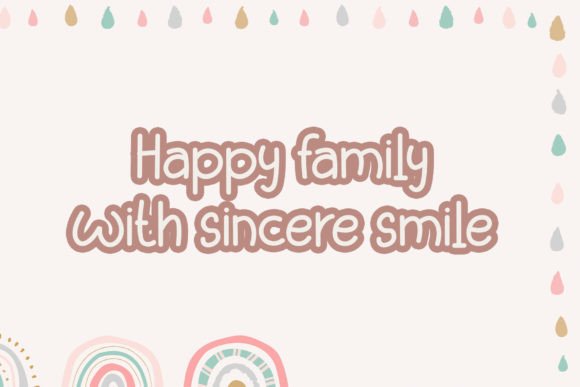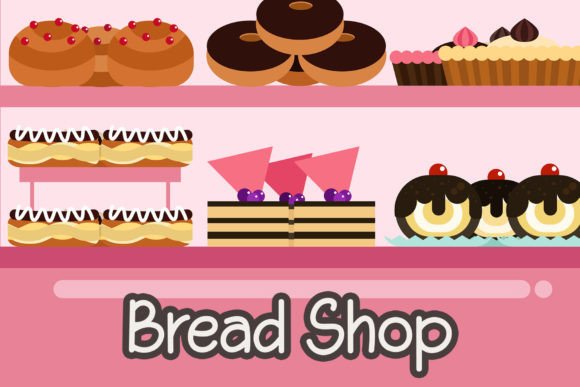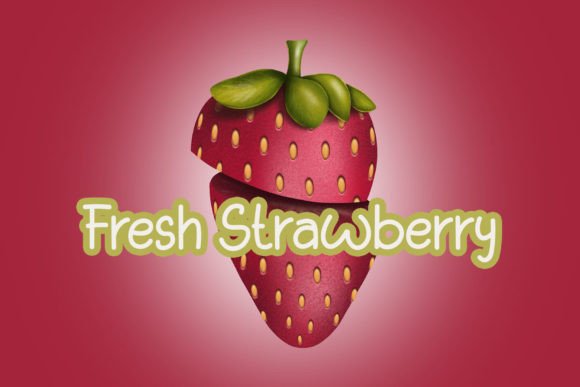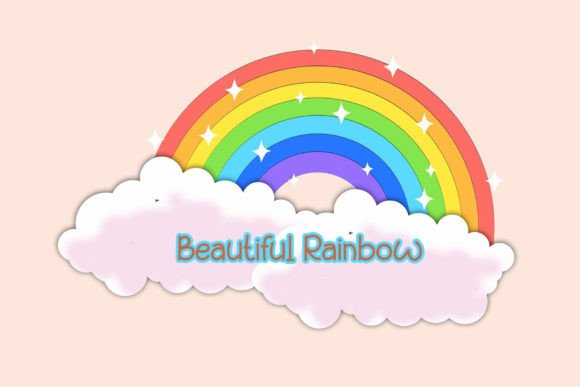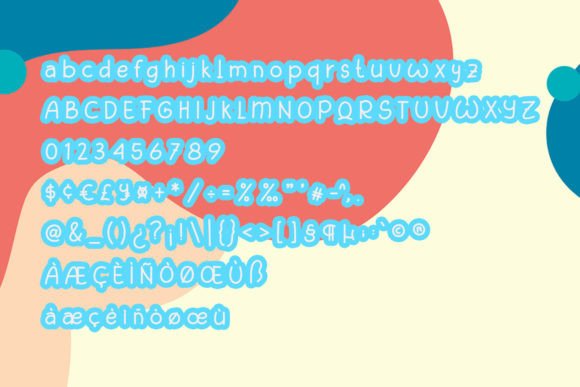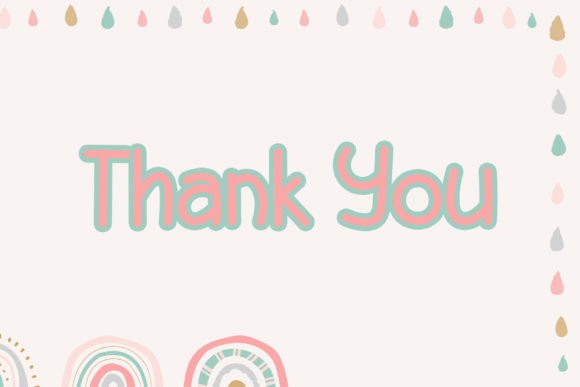
The Birth of a New Design Classic
Have you ever found yourself lost in a sea of digital design tools, searching for that perfect font to give your project an extra touch of magic? It’s a feeling we’ve all experienced at some point, but what if we told you that your search is over? Introducing Baby Happy Font, a delicate handwritten font that’s been carefully crafted to bring a touch of whimsy and personality to your designs.
Baby Happy Font is more than just a pretty face – it’s a versatile tool that can be used to write letters, invitations, food product labels, titles, and so much more. Its unique, handwritten style makes it a standout in the world of design, and its ease of use makes it accessible to designers of all levels. Whether you’re a seasoned pro or just starting out, Baby Happy Font is a valuable addition to any design toolkit.
Baby Happy Font Key Features
- Unique Characteristics: Baby Happy Font features a playful, hand-drawn design with rounded edges and soft lines, perfect for creating a whimsical and child-friendly atmosphere.
Baby Happy Font Review
I recently had the chance to work with the Baby Happy Font, and I must say it’s a unique and playful addition to any design project. ✨ One of the things that stands out about this font is its high level of customization, allowing designers to easily adjust the weight, width, and even the curves of the letters. This level of control makes it perfect for creating custom branding and promotional materials.
Another thing that works well is the font’s ability to convey a sense of fun and approachability. ✨ It’s perfect for projects aimed at children, such as nursery decor, educational materials, or children’s clothing. The font’s rounded edges and soft lines give it a friendly, non-threatening feel that’s sure to put a smile on users’ faces.
- ⚠️ The font may not be suitable for projects that require a more serious or professional tone.
- ⚠️ Some users may find the font’s rounded edges and soft lines to be too cursive or childlike for certain applications.
Overall, the Baby Happy Font is a great addition to any designer’s toolkit. While it may have some limitations, its high level of customization and playful aesthetic make it perfect for projects that require a fun and approachable tone. With a little practice, designers of all levels can unlock the full potential of this unique and versatile font.
Some common use cases for the Baby Happy Font include:
- Infant and toddler product labels and packaging
- Children’s book covers and illustrations
- Playful blog posts and social media graphics
For the most effective use of the Baby Happy Font, remember to balance its playful style with clear and readable text.